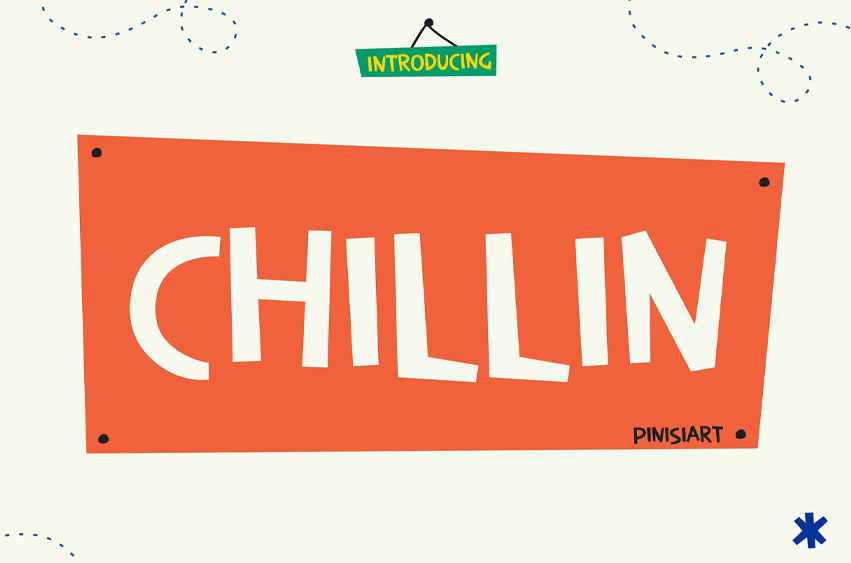
Chillin Font is a quirky kids’ display font that packs playful movement into every letter. With bouncy angles, exaggerated letter heights, and hand-cut charm, this typeface turns any phrase into a shout of fun. Built for packaging, activity books, and educational visuals, CHILLIN has a bold but non-threatening personality—perfect for early readers and visual learners. Its uneven flow and soft cornering give it a handmade, energetic vibe that feels friendly and intentional, not random.
Whether it’s shouting “Let’s Play!” across the school hallway, jazzing up birthday invites, or making snack packaging pop, CHILLIN helps your words jump off the page. It’s ideal for brands looking to connect with kids through high-contrast, high-energy typography that feels personal, relatable, and just plain fun. Use it to create giggles, spark curiosity, and highlight playful tone-of-voice content with ease.
- Handmade Bounce Display – Quirky, asymmetric letterforms with organic rhythm
- Built for Kids – Great for back-to-school, activity sheets, party invites, and packaging
- Dynamic Energy – Each glyph feels like it’s moving, great for call-outs and headlines
- Friendly & Readable – Bold enough for signage, soft enough for storybooks
- Multiple Use Cases – School branding, food products, merchandise, interactive design